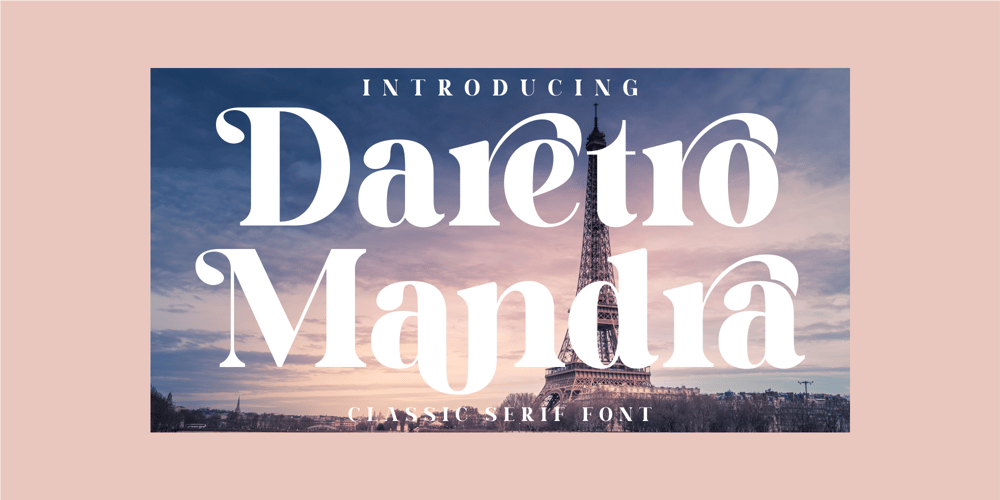
Daretro Mandra
Daretro Mandra font
Daretro Mandra Font Family was designed by Heru Utama Putra and published by Letterena Studios. Daretro Mandra contains 2 styles and family package options. Daretro Mandra is elegant serif font. Made for any professional project branding. It is the best for branding, printing, wedding and quotes. Every letter has a unique and beautiful touch.Our fonts are inspired from the country of paris exquisite places according to this font.Includes:Daretro Mandra (OTF)Features: Beautiful Ligatures Beautiful Alternates PUA Encoded Multilingual Support Numerals and Punctuation